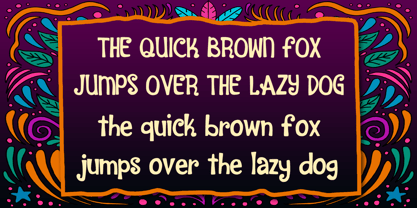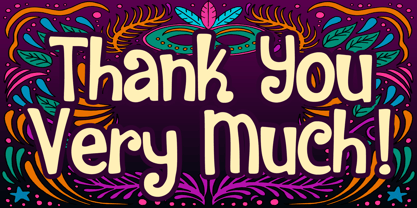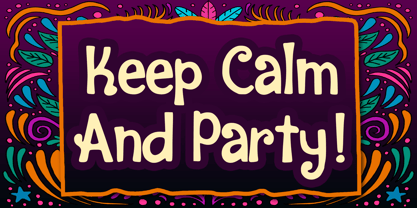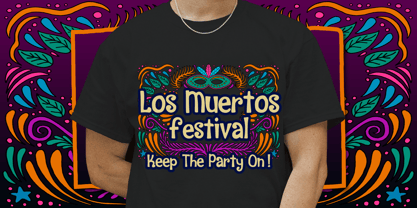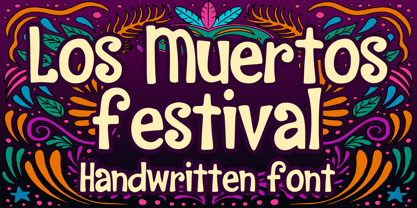
Los Muertos Festival
by Mvmet
The Los Muertos Festival Font Family was designed by Gabriel Valentinus and published by Mvmet. Los Muertos Festival contains 1 styles. More about this family
Los Muertos Festival is an playful and festive handdrawn font. It will be perfect for your horror and Halloween-themed needs! You can use it for anything ranging from merchandise like t-shirts and clothing, for your scary book designs, Halloween party needs, greeting cards, stickers, posters, banners, or anything that needs a festive horror or magical touch.
Designers: Gabriel Valentinus
Foundry: Mvmet